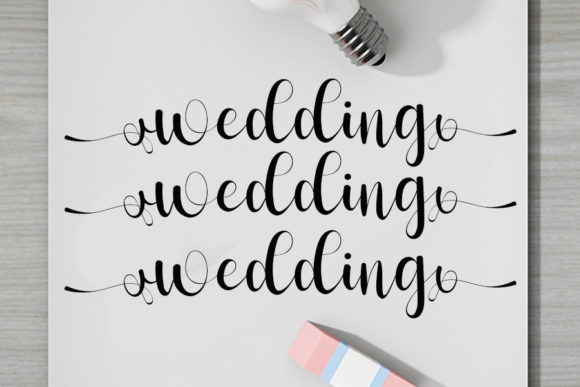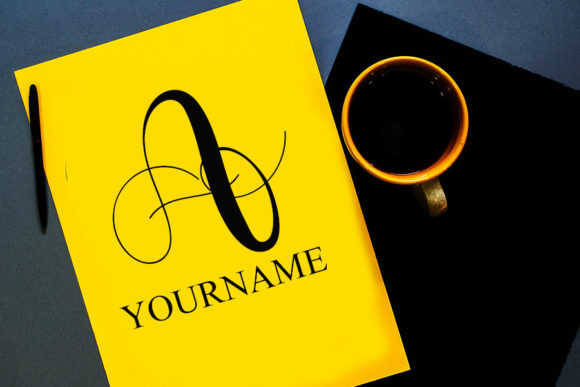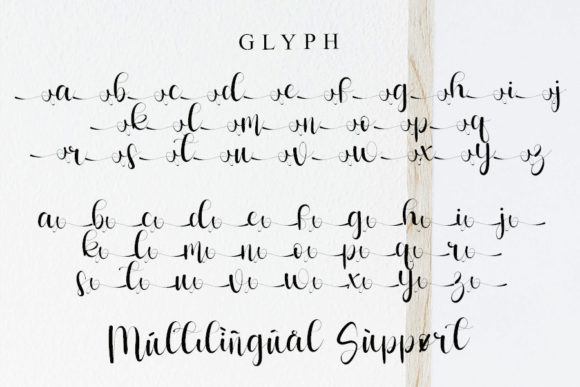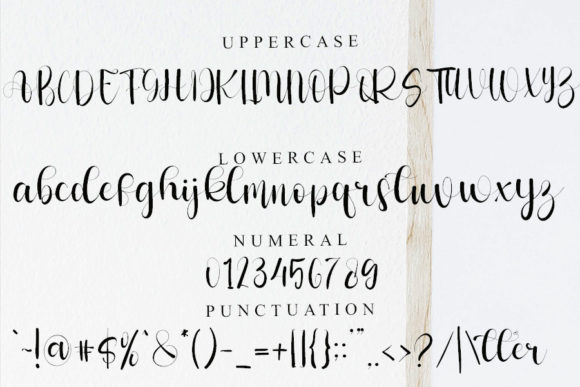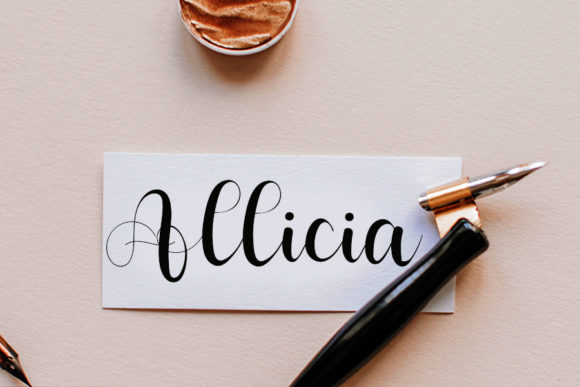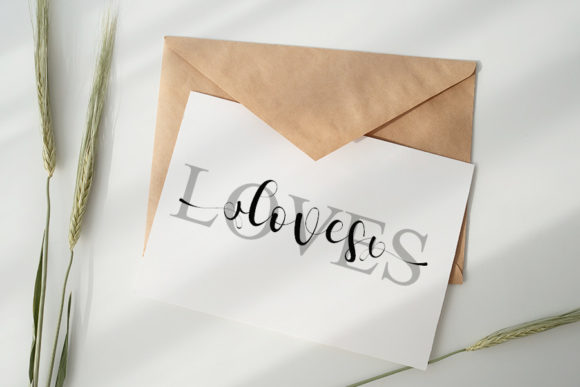
Romantic Font
About Romantic Font
Romantic is a beautiful and refined script font that exudes elegance and sophistication. With its modern calligraphic look, this font is perfect for a wide range of design applications, including branding, invitations, stationery, wedding designs, social media posts, and more.
The beauty of Romantic lies in its carefully crafted letterforms that strike the balance between modernity and classic calligraphy. The font’s graceful and flowing strokes create a visually appealing composition that captures attention. It adds a touch of refinement and sophistication to your designs, making them visually stunning and memorable.
Romantic’s versatility makes it suitable for various design projects across different industries. Whether you’re creating a logo for a luxury brand, designing elegant wedding invitations, or curating a beautiful social media feed, this font adapts seamlessly to different contexts. Its modern calligraphic look enhances the overall aesthetic and brings a sense of elegance to your creations.
With its PUA encoding, Romantic allows easy access to all of its glyphs and swashes, giving you the freedom to customize and add decorative elements to your designs. This flexibility adds a personal touch and enables you to create truly unique and visually striking compositions.
By incorporating Romantic into your projects, you infuse them with a sense of beauty and sophistication. The font’s refined script style adds a touch of elegance that elevates the look of your designs, making them visually stunning and captivating. Embrace the versatility and customization options of Romantic, and watch as it enhances the appeal of your branding, invitations, stationery, wedding designs, social media posts, and more.
In summary, Romantic is a beautiful and refined script font that exudes elegance and sophistication. Its carefully crafted letterforms create a visually appealing composition. Embrace the versatility and customization options of Romantic, and let it elevate the look of your branding, invitations, stationery, wedding designs, social media posts, and more, adding a touch of refinement and beauty that leaves a lasting impression.